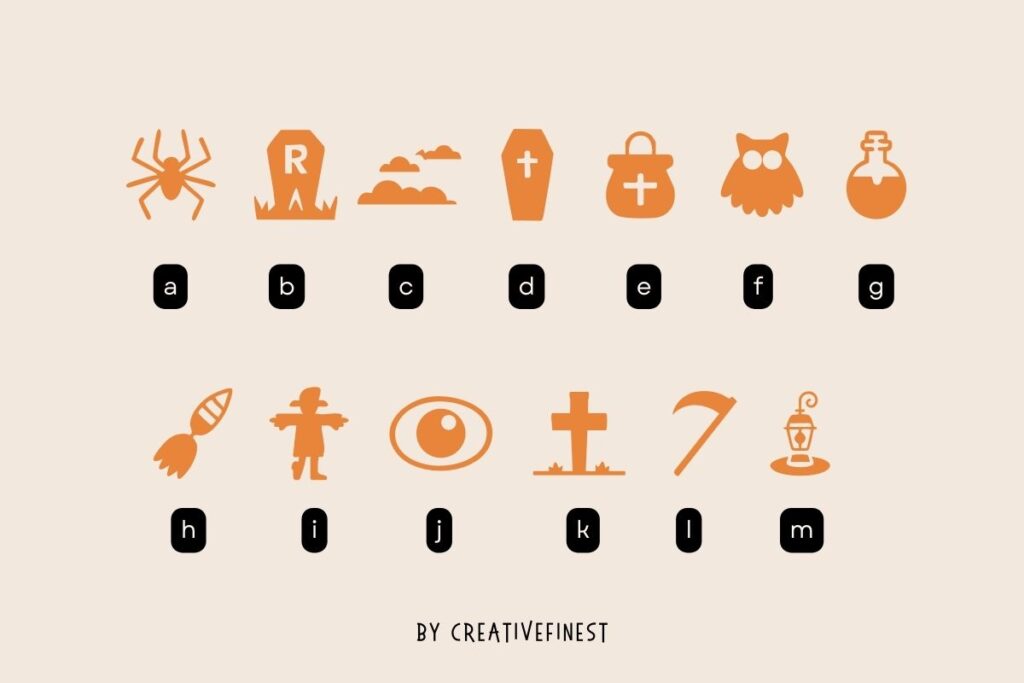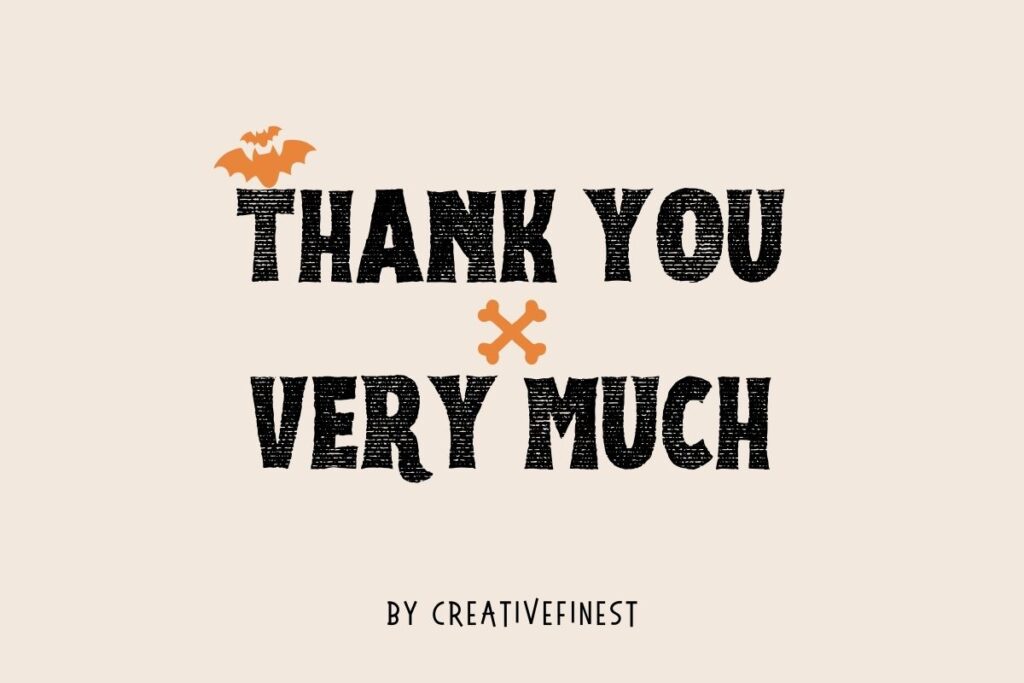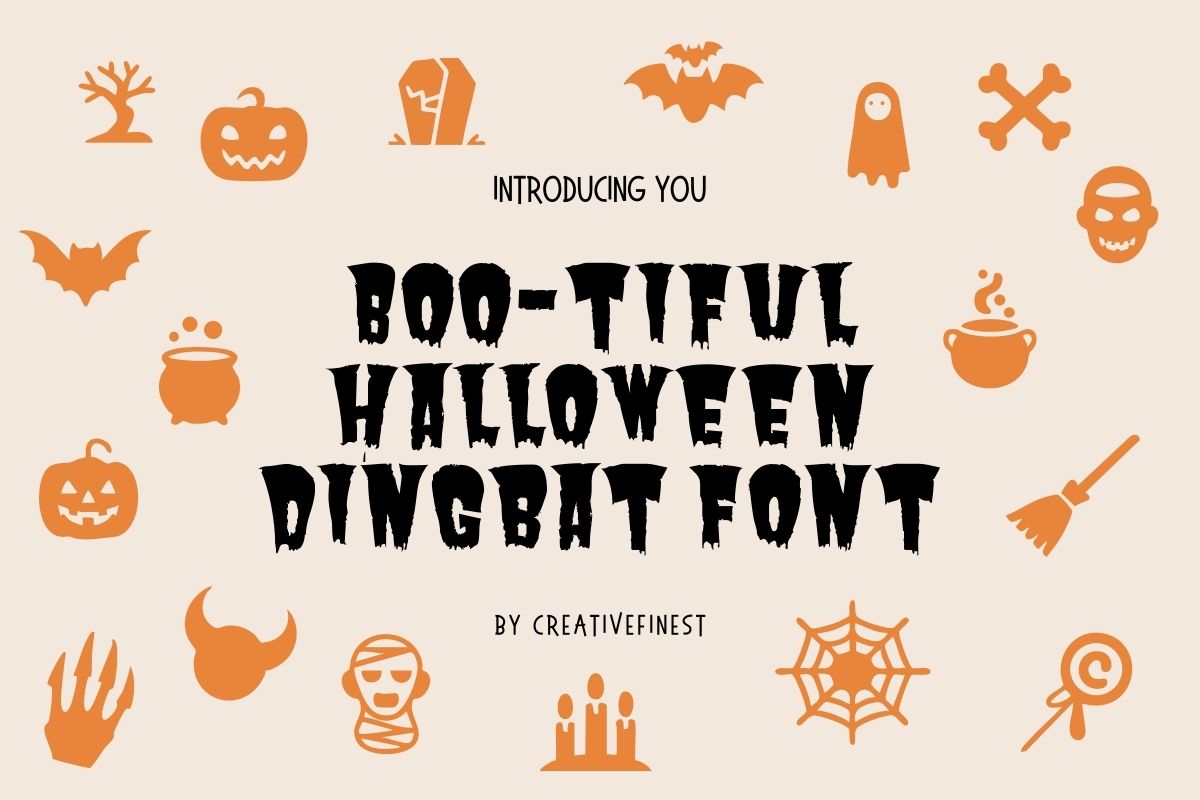
Boo-tiful Halloween Font – Doodle Typeface
The Boo-tiful Halloween Font is here to add a fun and spooky vibe to your designs! This playful doodle typeface, perfectly captures the spirit of Halloween with its quirky drips and bold, jagged edges.
Featuring a mix of friendly pumpkins, flying bats, and classic Halloween doodles, this font is ideal for party invites, social media posts, or any project that needs a dash of haunted charm. Make your Halloween creations stand out with this font – because every spooky design deserves a little beautiful magic!